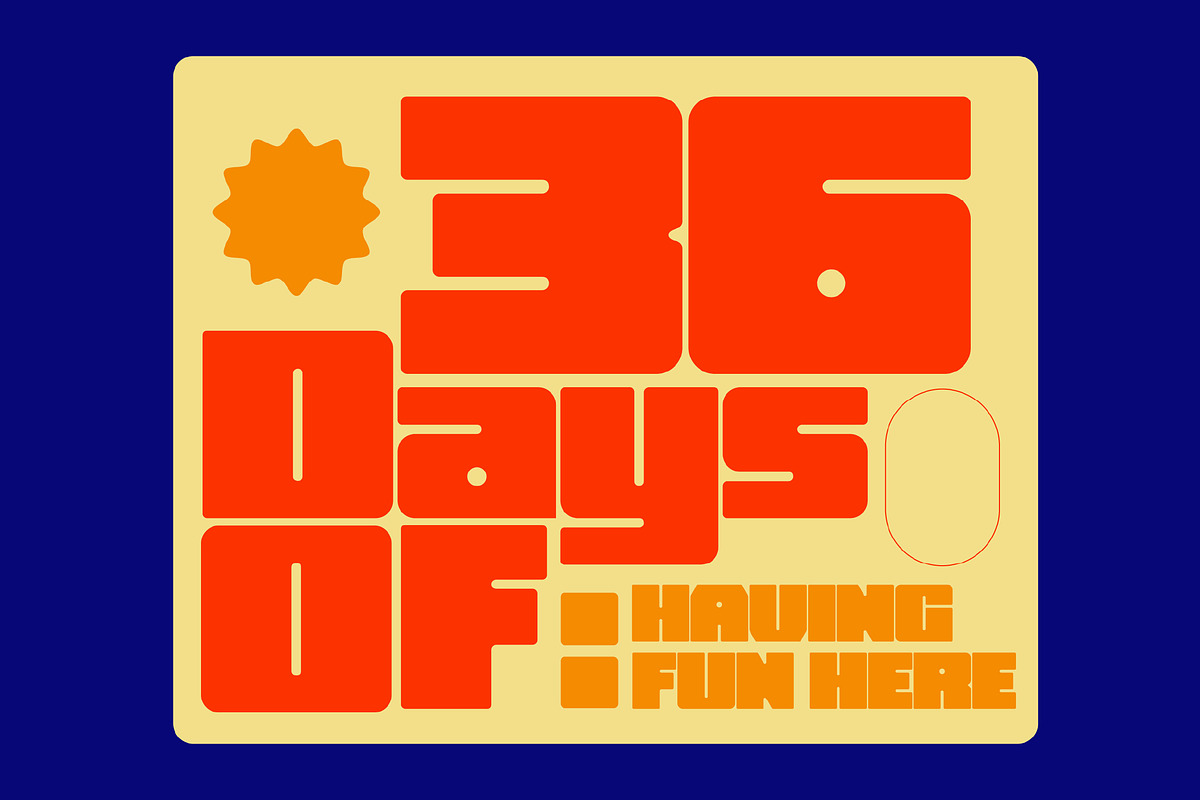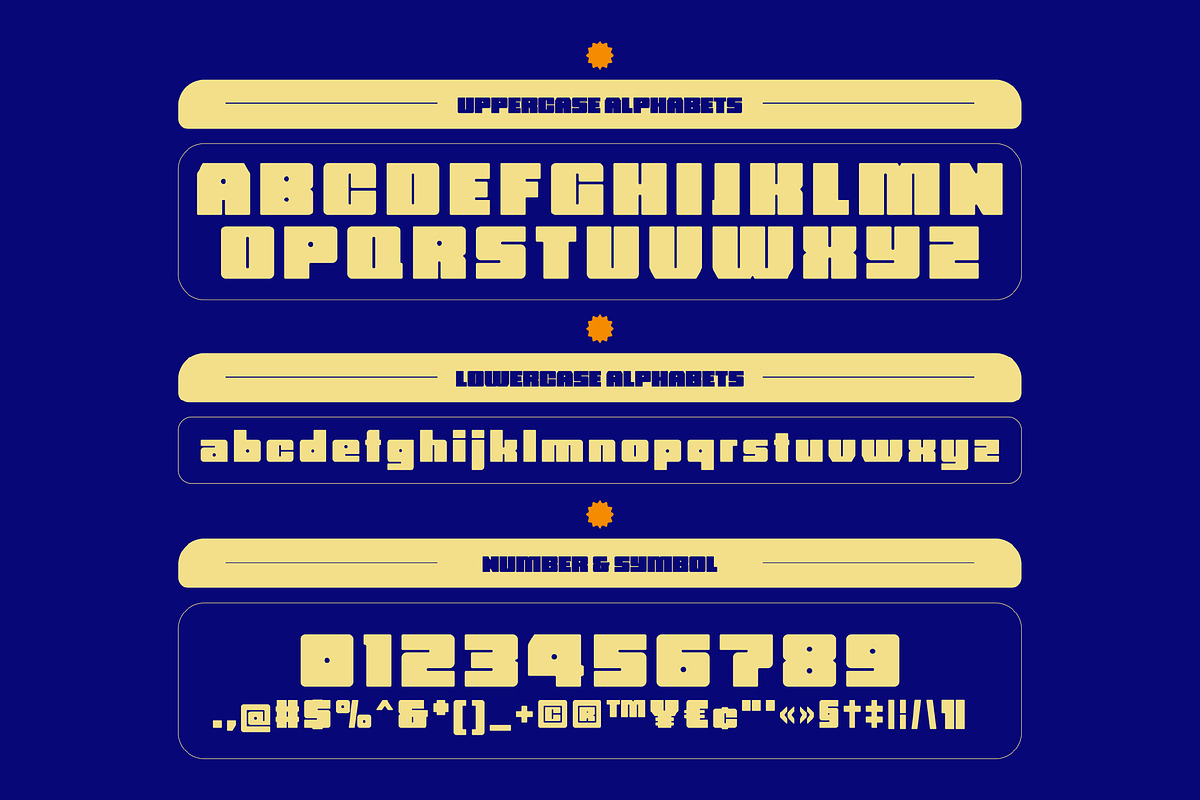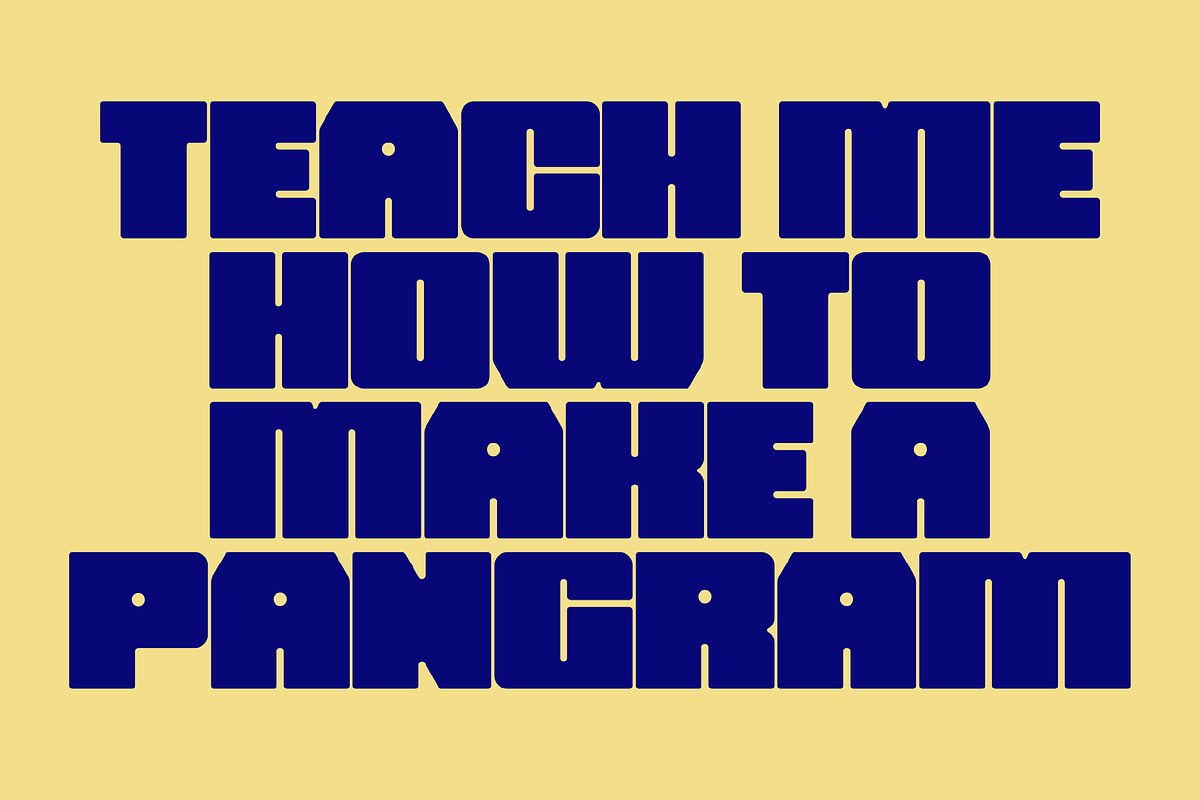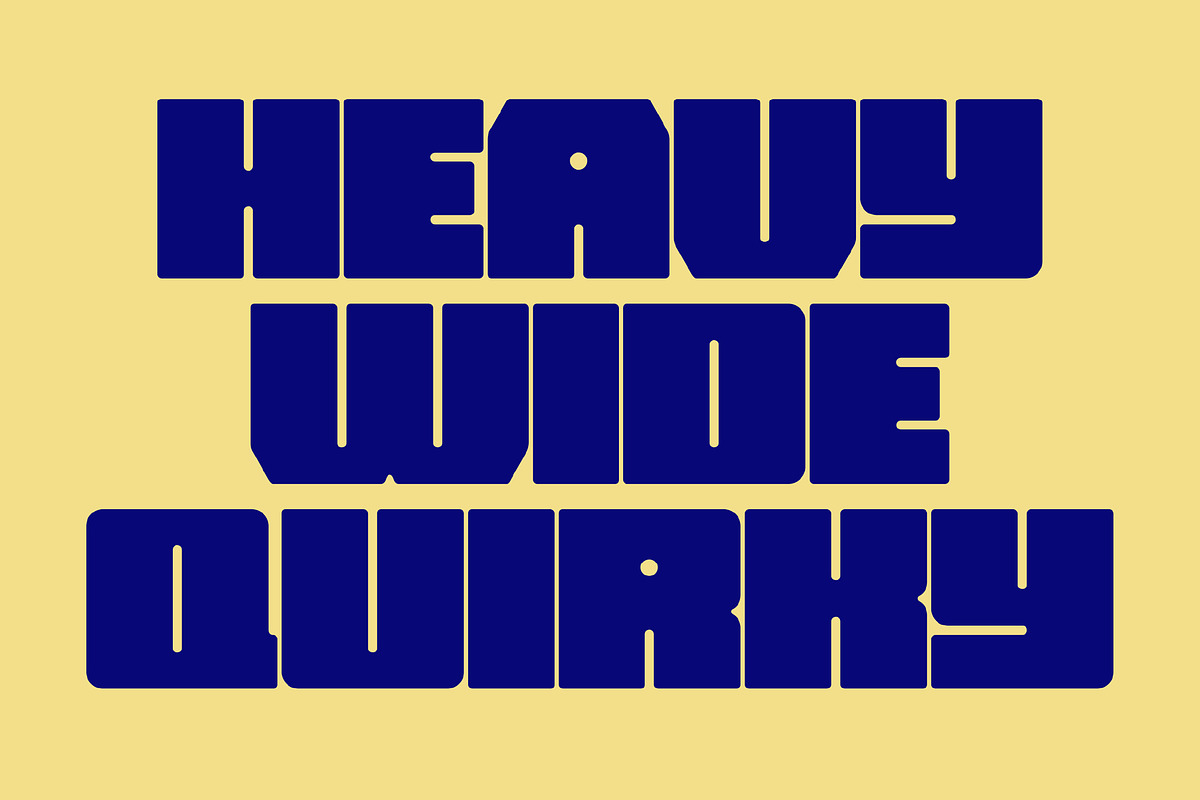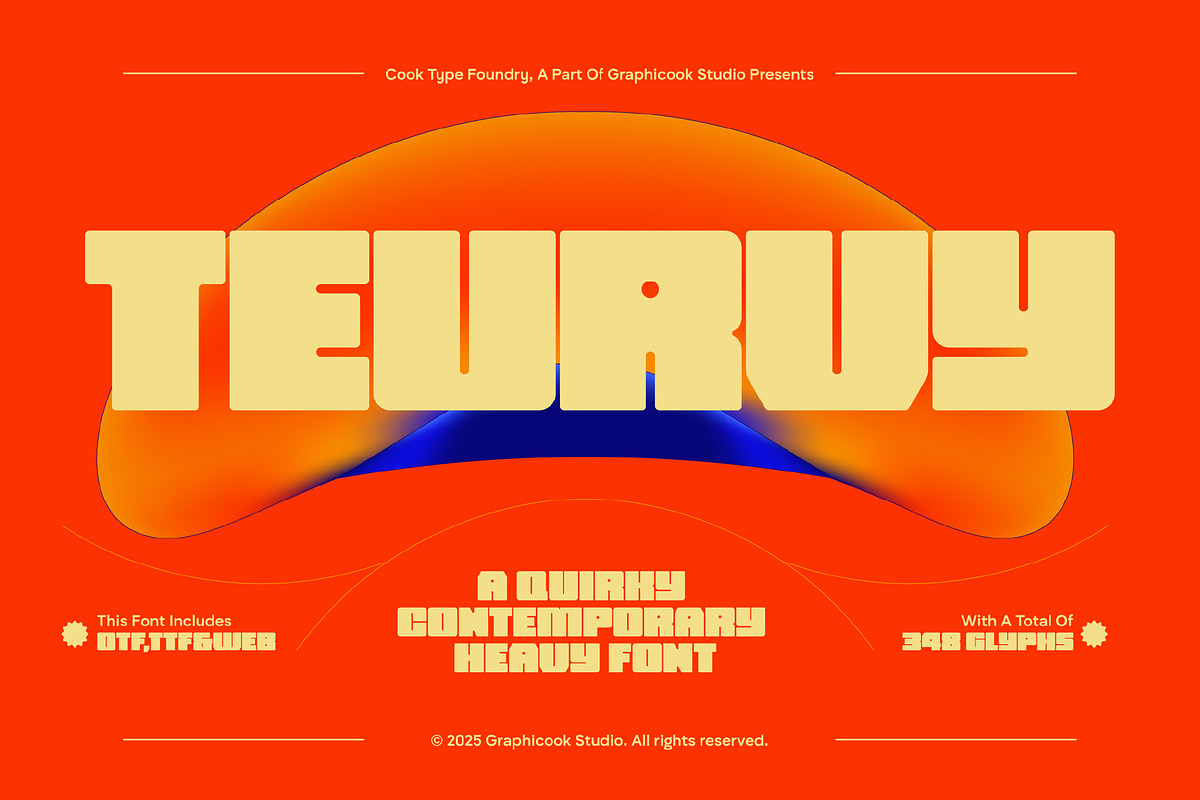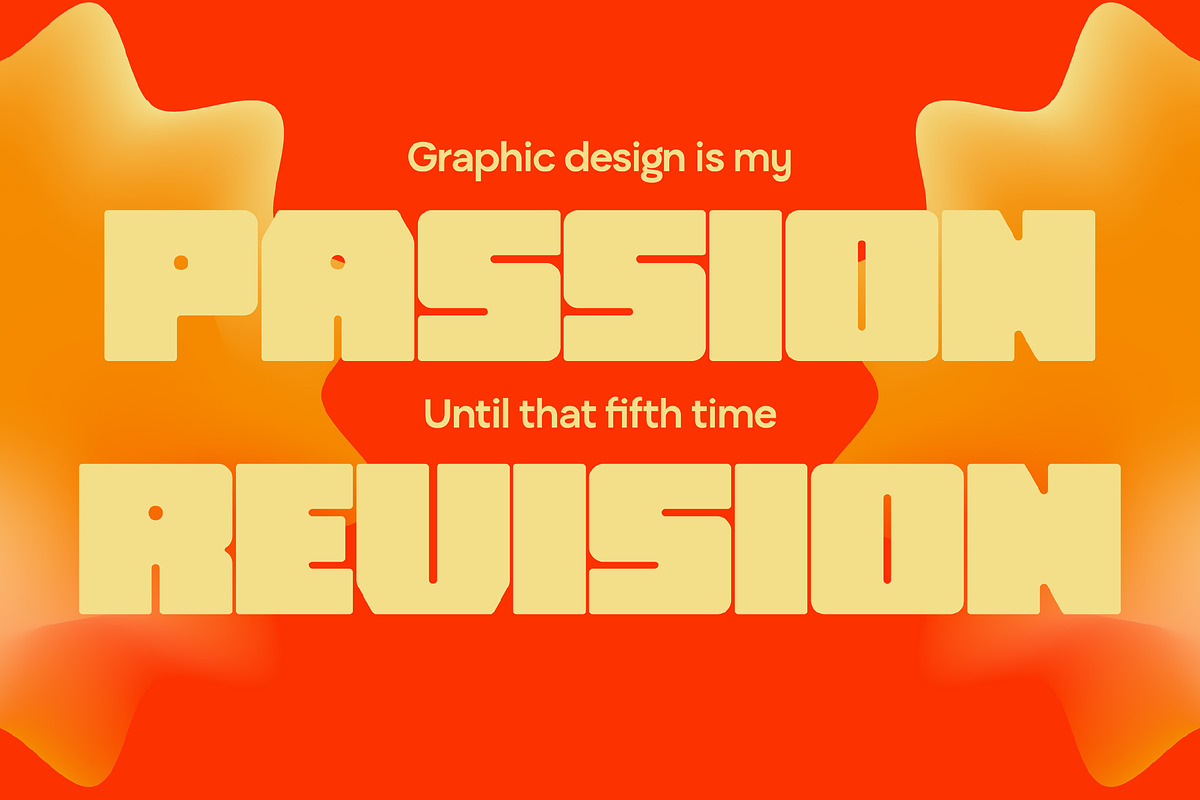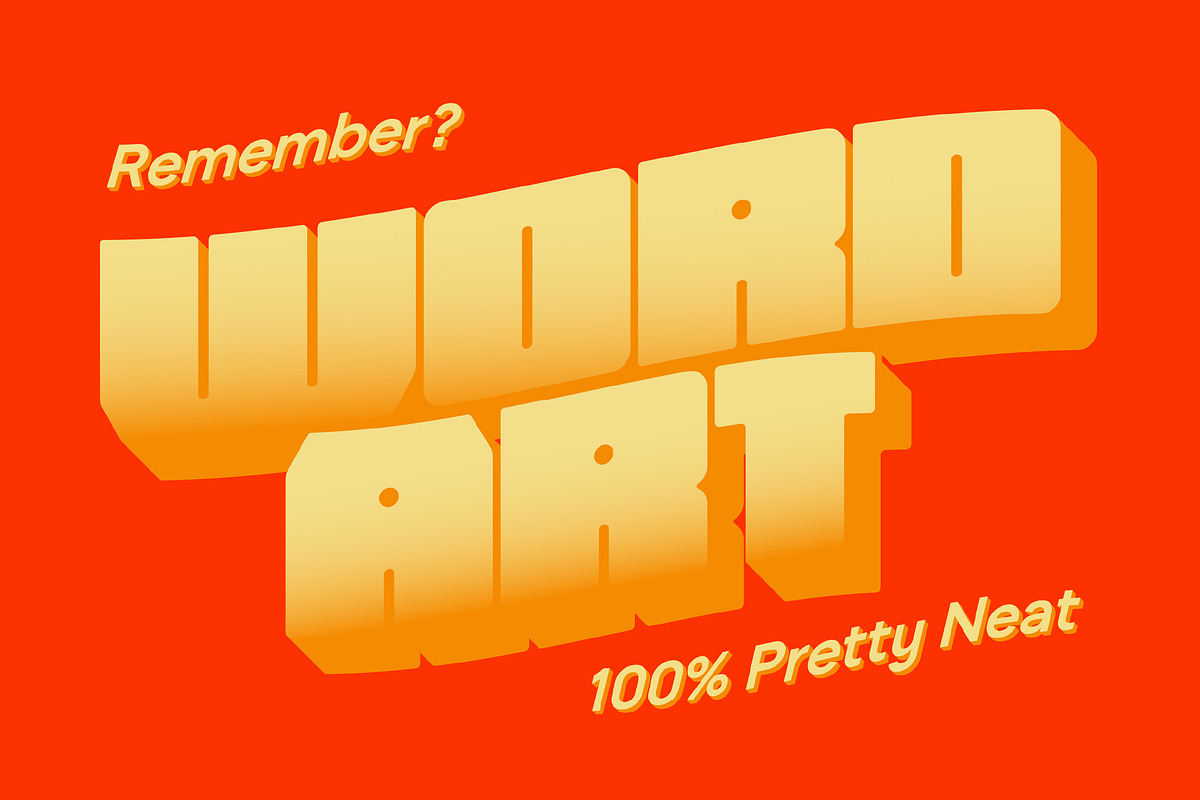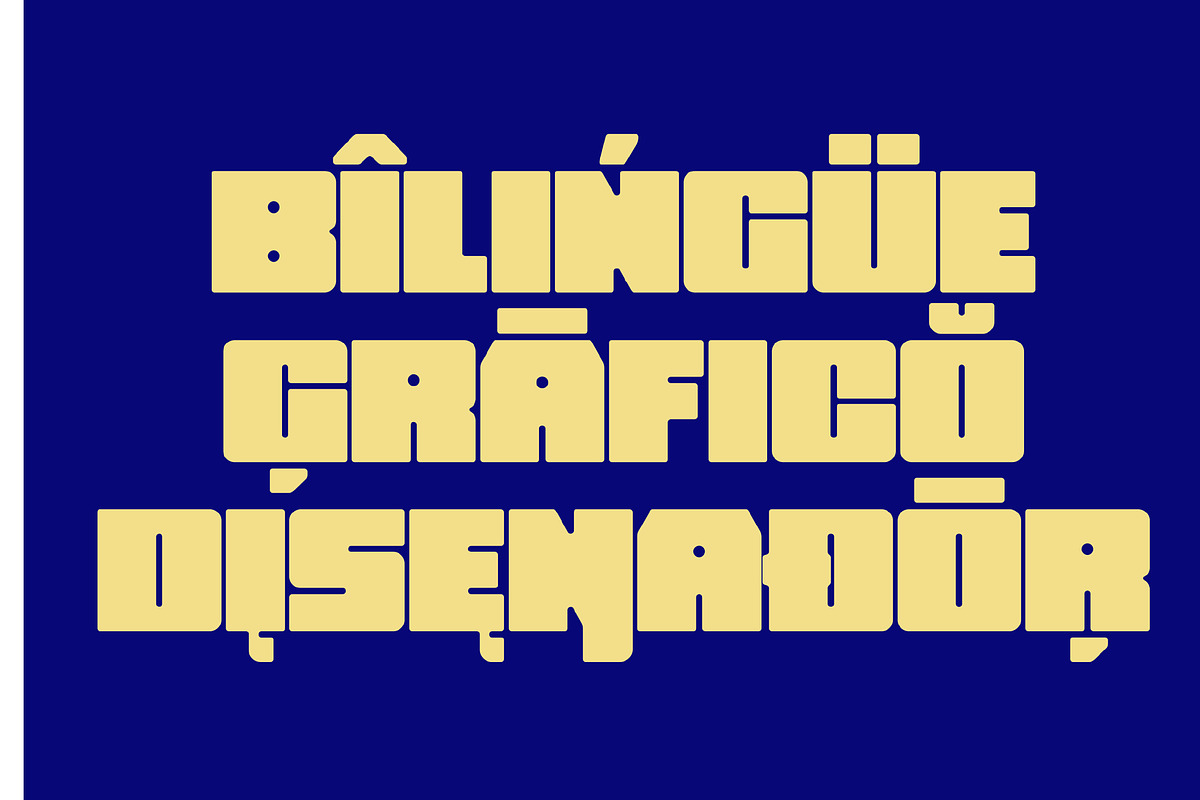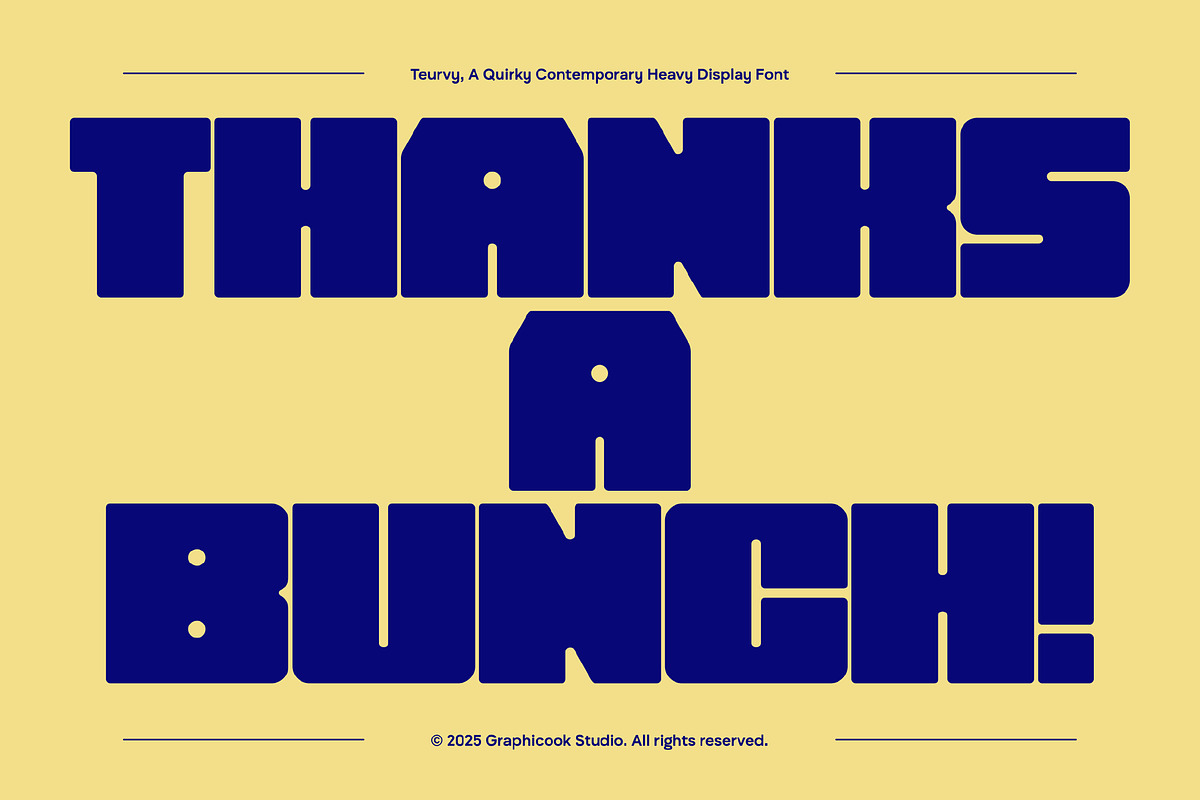
Teurvy
Teurvy is a wide font with an ultra-thick and sturdy design, creating a strong and stable impression. It’s perfect for headlines, logos, and designs that aim to be fun, bold, and unconventional.
Teurvy is perfect for headlines, logotypes, magazines, packaging, quotes, movies, games, cover albums, book covers, and flyers, it's a perfect solution for creating eye-catching designs that stand out in any context.